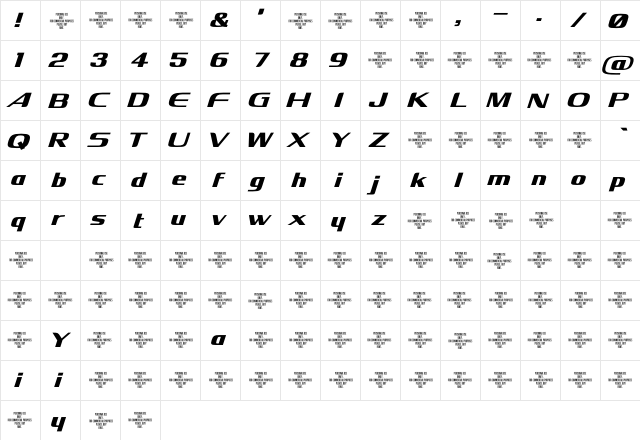
Xbka Regular
| Designer | Andrii Shevchyk |
Design Context for Xbka Typeface
Xbka is a composed and adaptable typeface that performs quietly and consistently across a wide range of design contexts.